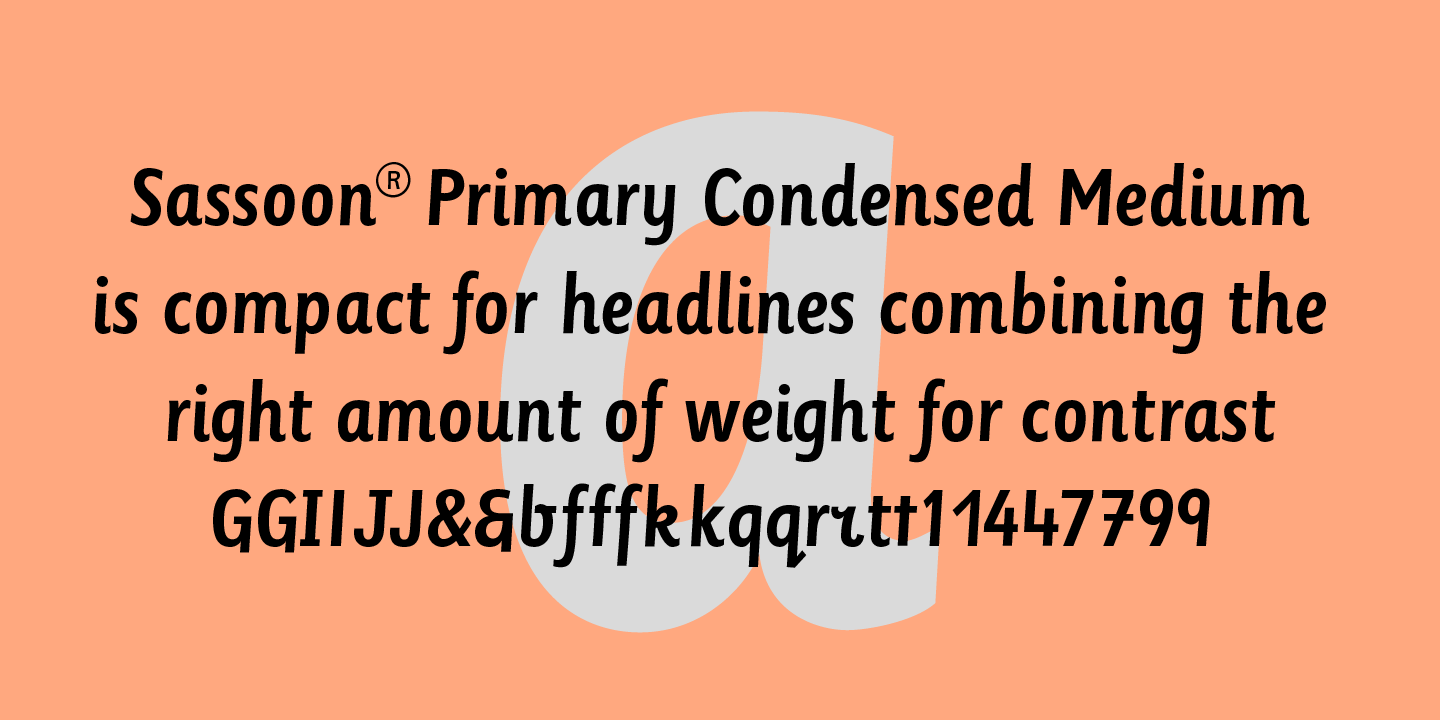
Sassoon Primary Cond Font is ideal for elementary school materials, children's learning apps, educational workbook designs, reading comprehension programs, literacy development resources, and early childhood education signage.
Sassoon Primary Cond Font is exciting because it specifically supports early literacy development with scientifically designed letterforms, delivering an educational typeface that enhances reading comprehension and supports children's natural learning progression.
The Sassoon Primary Cond Font family includes educational variations: Sassoon Primary Cond Regular, Sassoon Primary Cond Bold, learning-optimized spacing, and character alternates designed to support dyslexic readers and emerging literacy skills.
Support learning success with Sassoon Primary Cond Font Free Download, an educationally optimized typeface that brings reading comprehension enhancement and literacy development support to your most important educational design projects. This scientifically designed font excels in creating effective materials for elementary schools, reading specialists, educational technology companies, and learning disability support organizations that help children develop strong foundational literacy skills. The carefully engineered letterforms feature optimal character spacing and distinctive letter shapes that reduce reading confusion while supporting natural eye movement patterns for beginning readers and students with dyslexia. Perfect for phonics instruction materials, reading assessment tools, educational software interfaces, and classroom learning resources that need to maximize reading comprehension and minimize learning barriers, this font connects with educators who understand the critical importance of appropriate typography in supporting student success. Each character promotes reading confidence, making every educational text feel accessible and encouraging for young learners developing essential literacy skills. Sassoon Primary Cond Font transforms educational communications into powerful learning tools that give every child the best possible foundation for lifelong reading success and academic achievement.